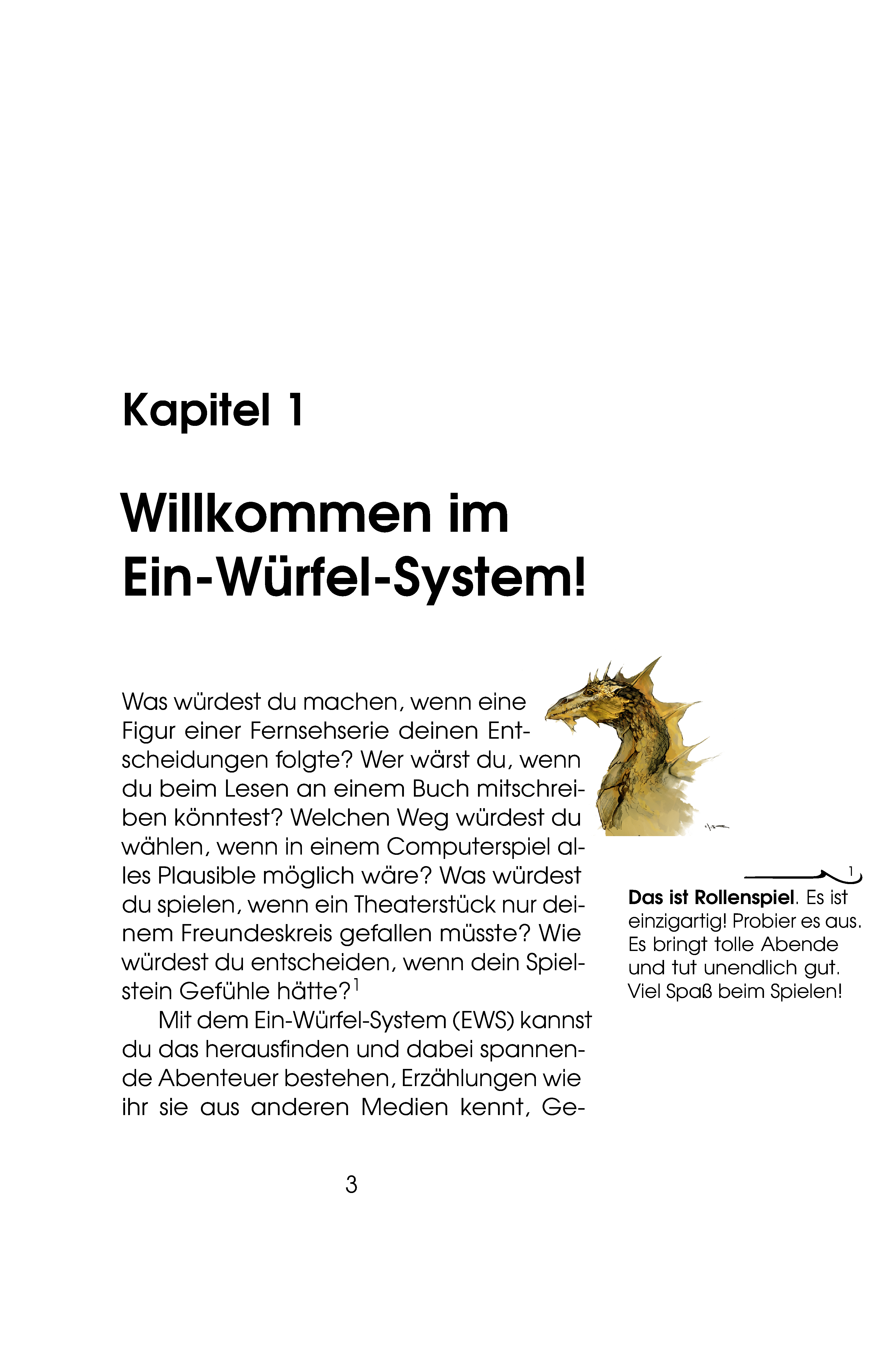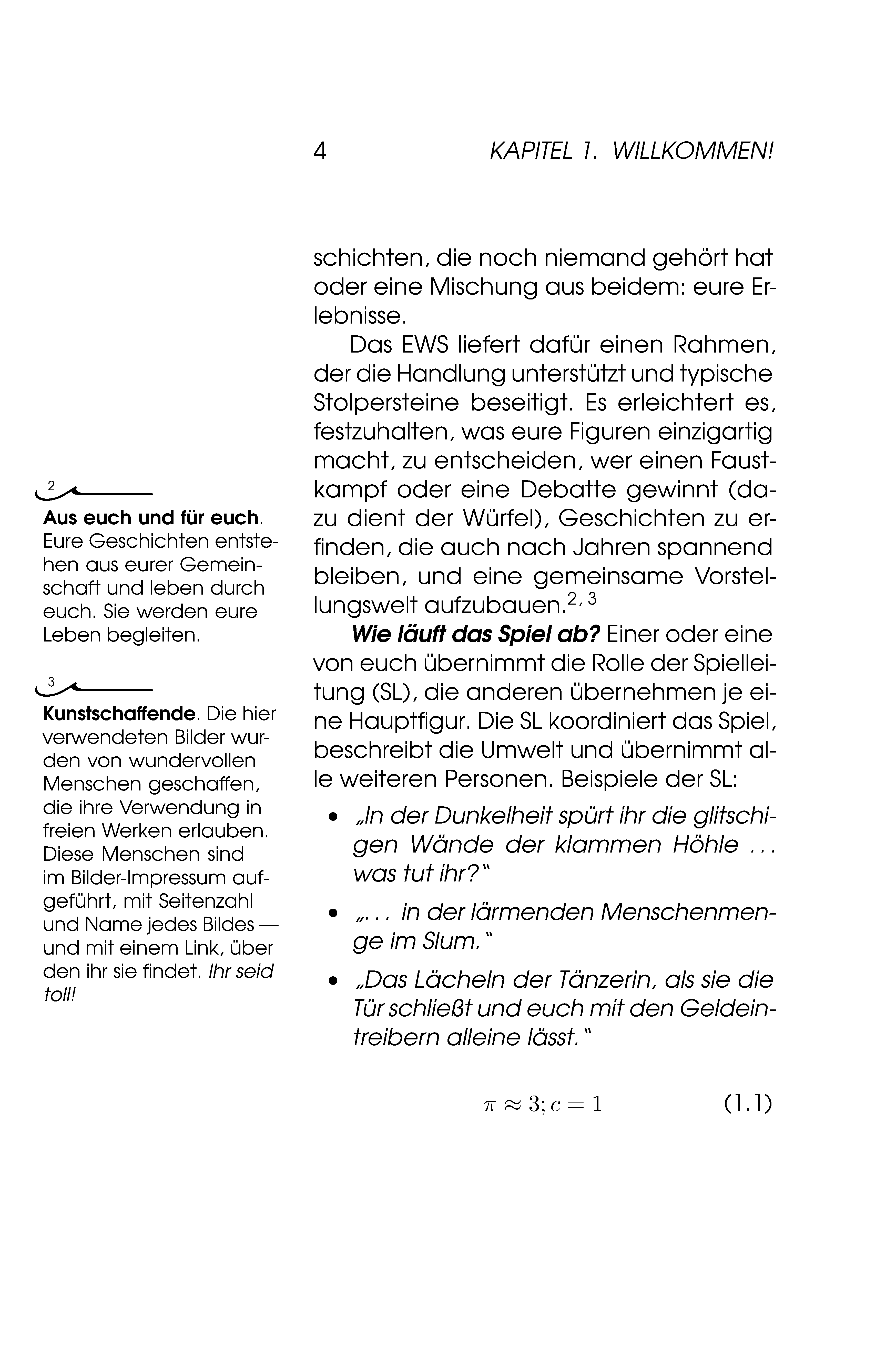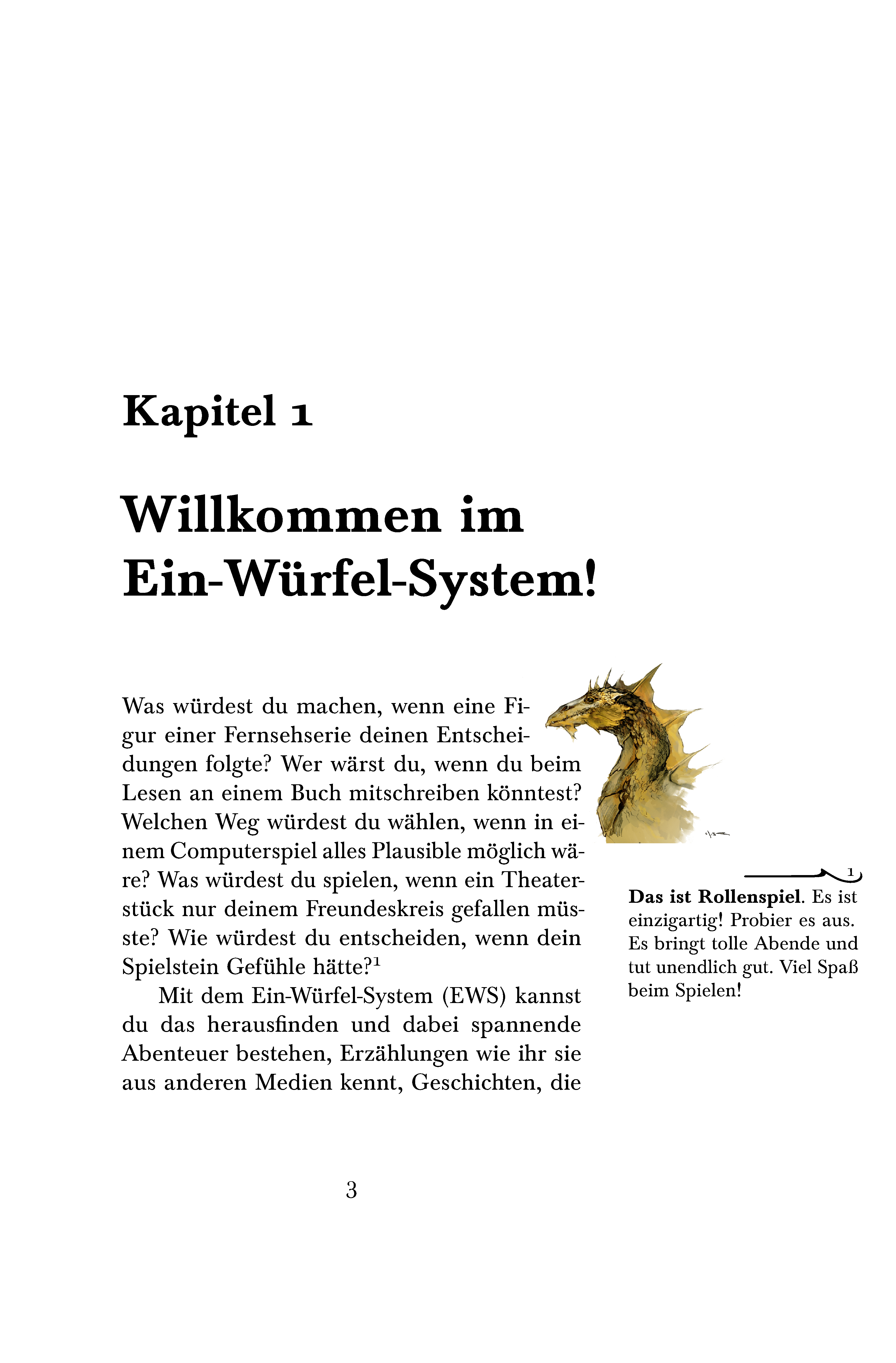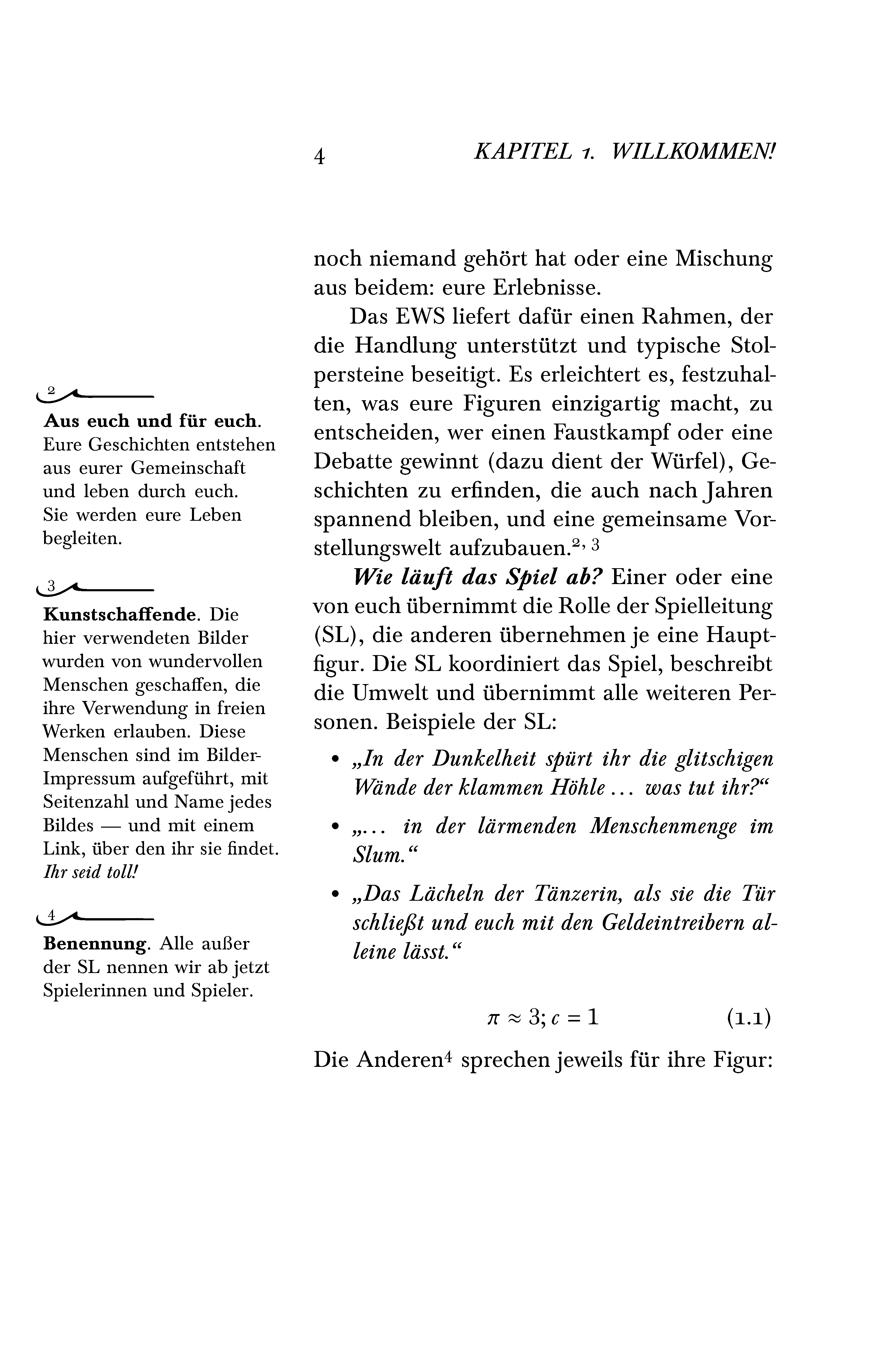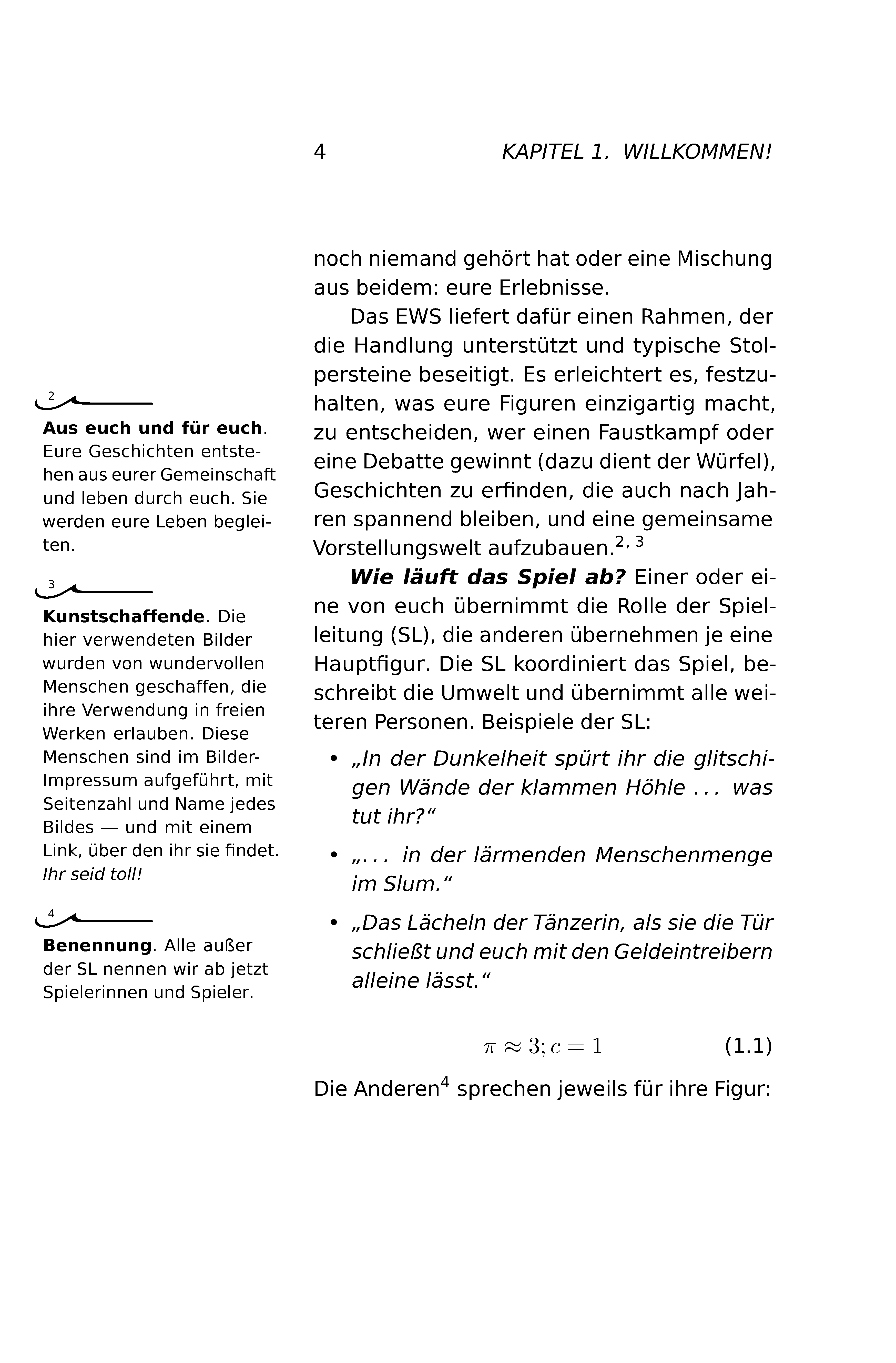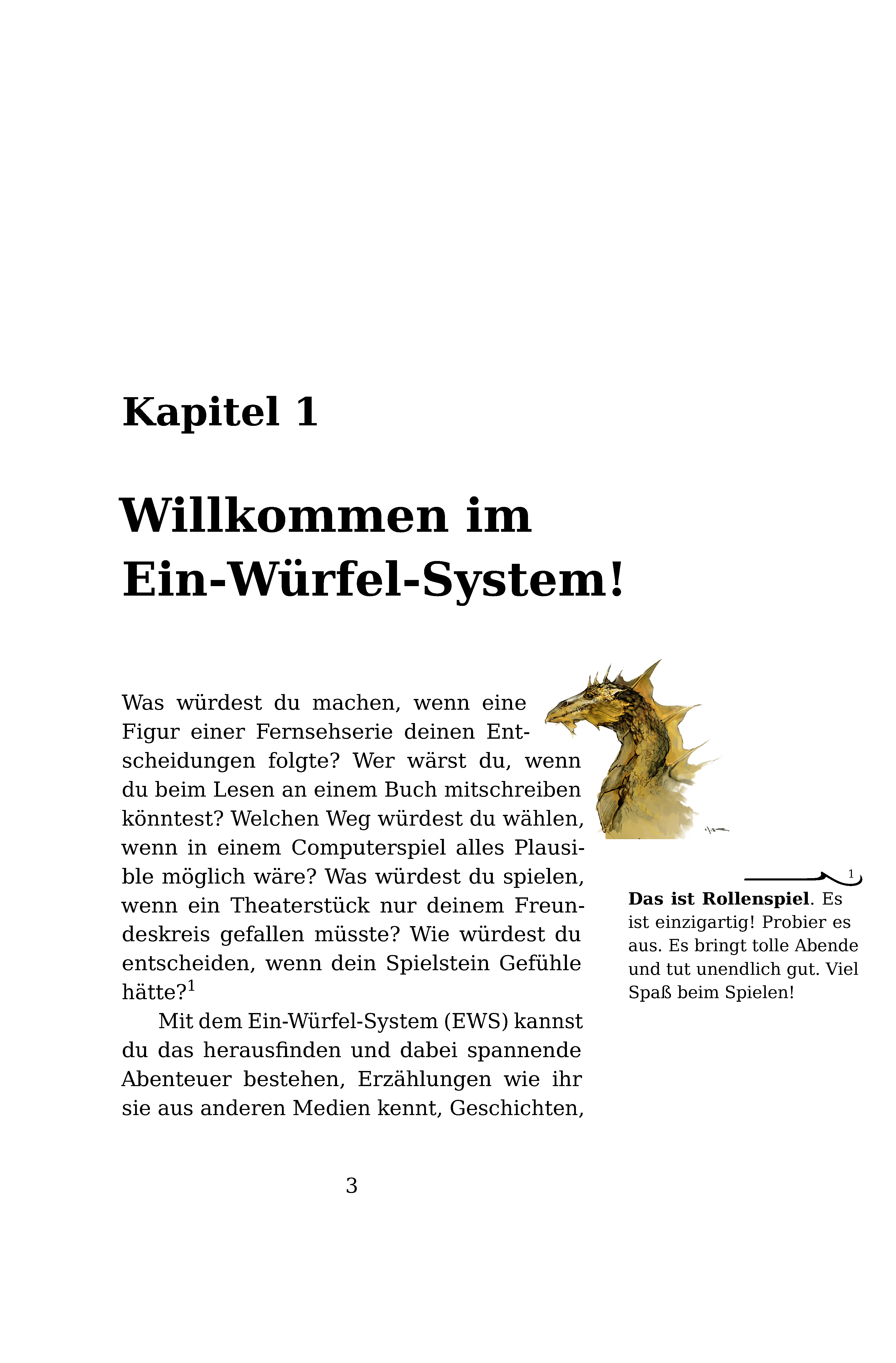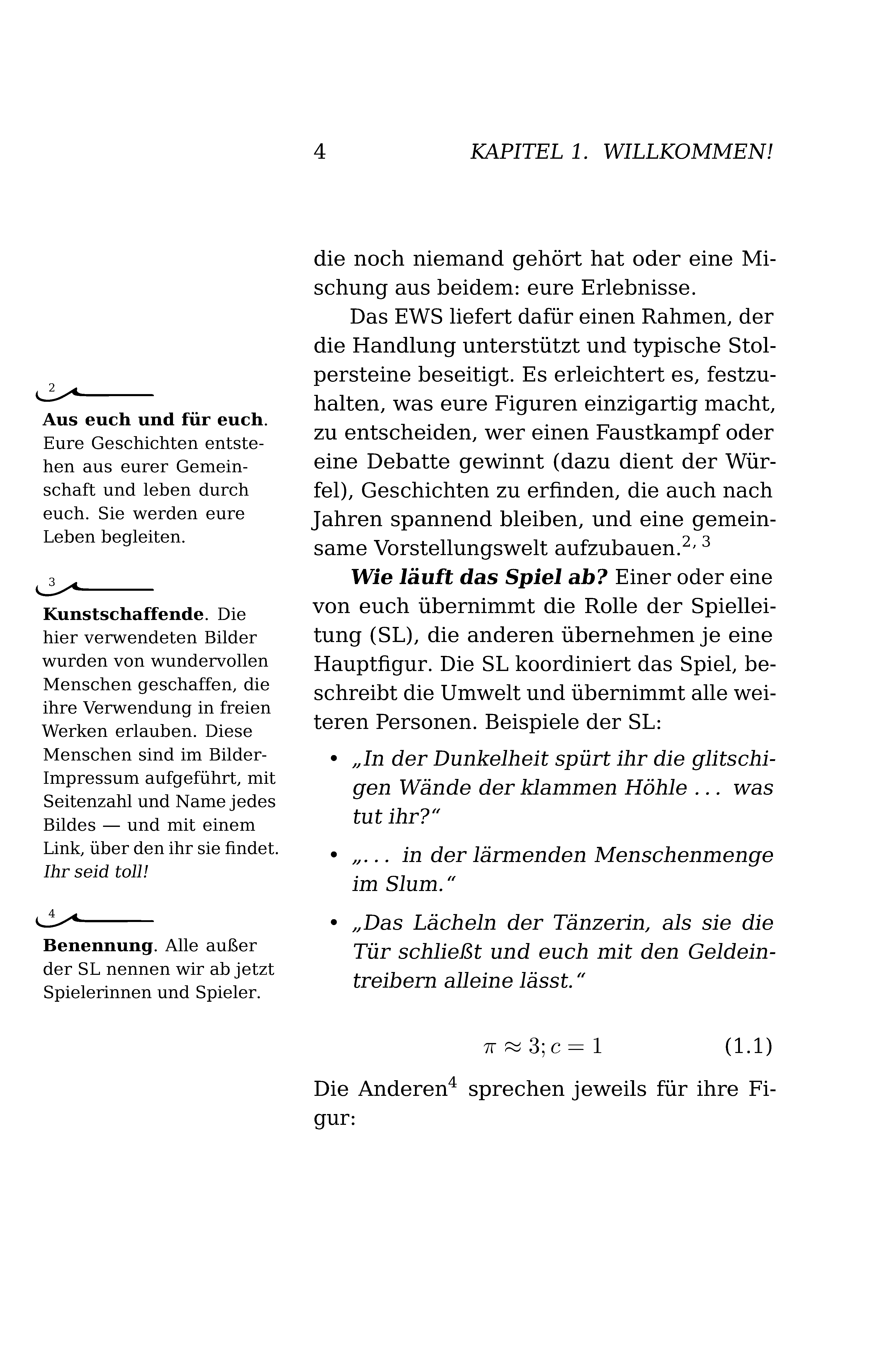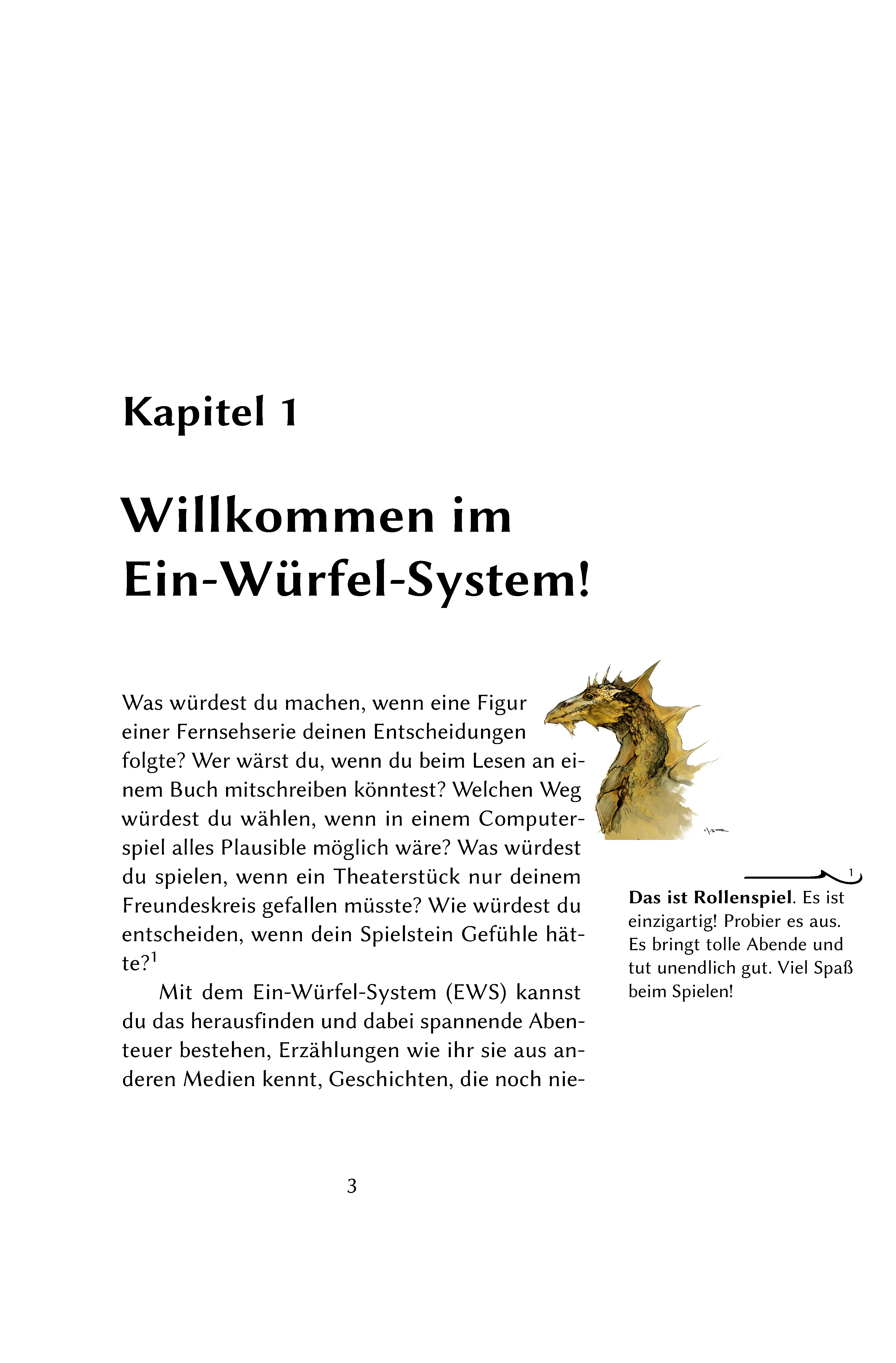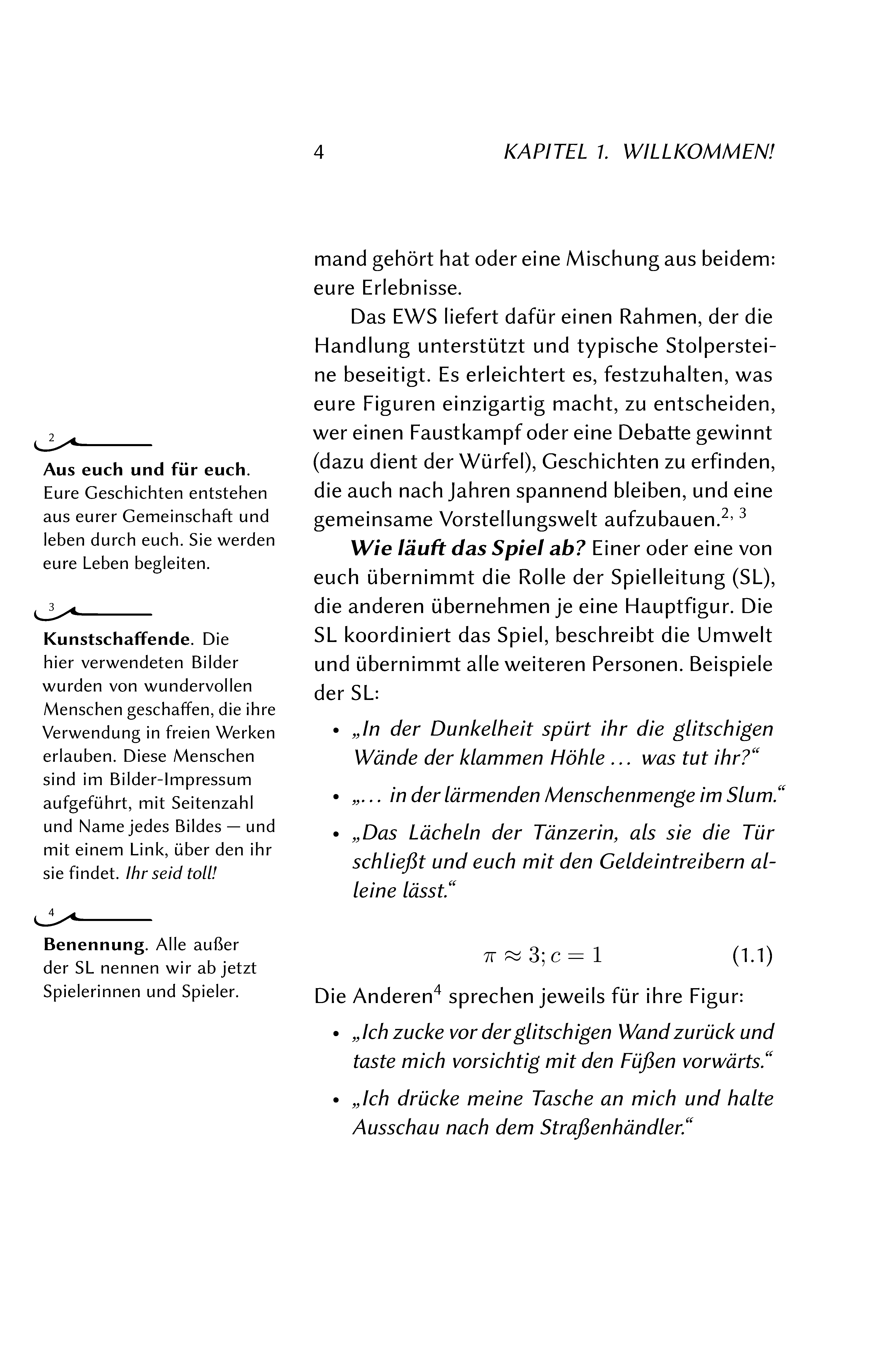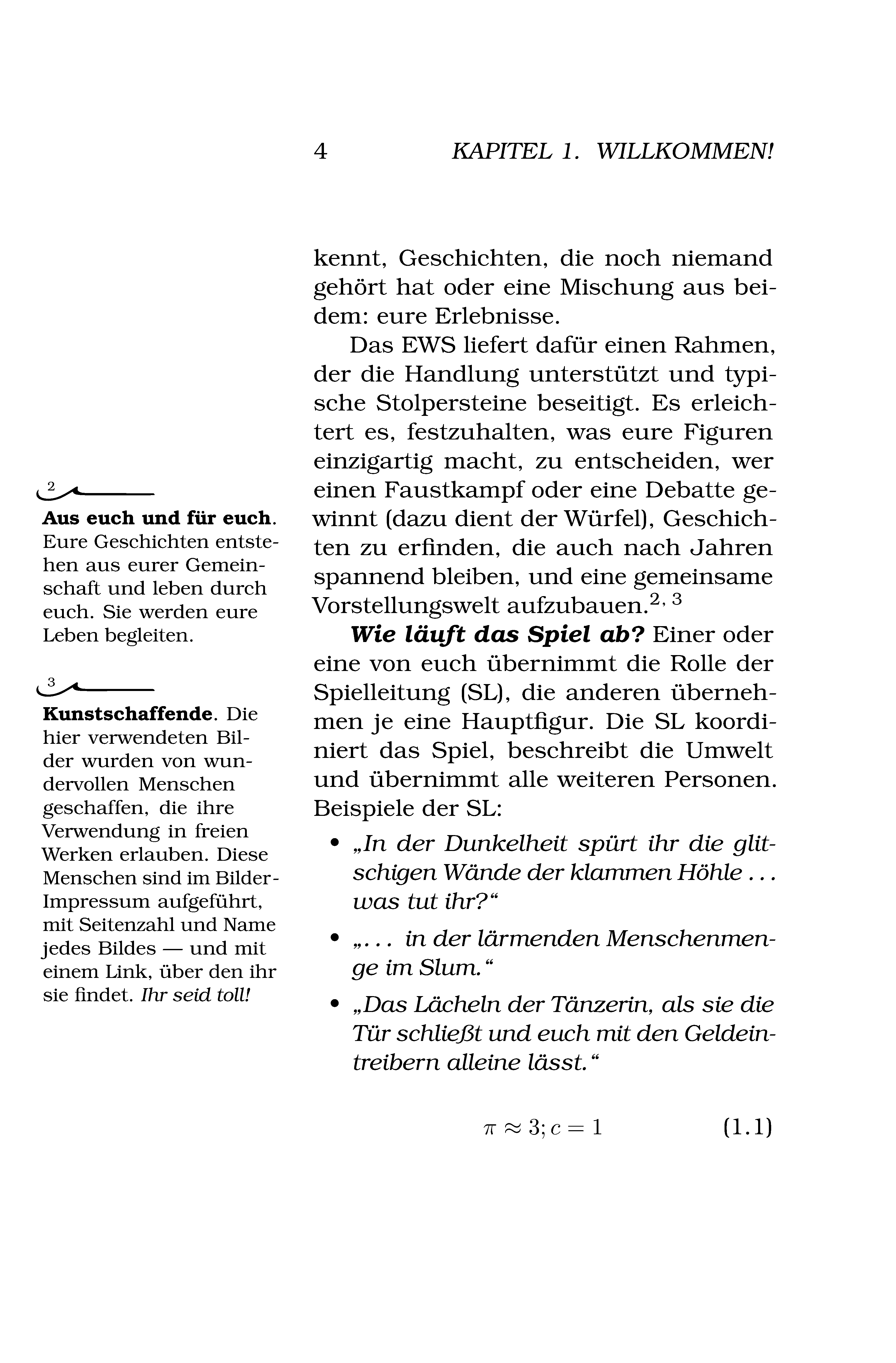
Top 20 Latex Fonts
Following the awesome Top 10 LaTeX Fonts by Jaap Joris Vens, this page includes pages using 20 LaTeX fonts that I evaluated for Version 3.0 of the 1d6 roleplaying system.
Each paragraph1 showcases a different font family and how I activated it. All fonts2 are free and open source and available via texlive. The sources are basesetup.tex and template.org. The pages are converted to PNGs with Ghostscript (see the howto at the end of this page).
Using this page: click through the fonts a few times and stop at the one which best matches the feeling you want.
Sans Serif
Nimbus Sans (Helvetica)
Gothic (URW for Avant Garde)
Berasans
Libris
\usepackage{libris} % a nice, almost handwritten calligraphic look
Biolinum
\usepackage{biolinum} % included with the {Libertine} font package
Iwona
Paratype
Heros
Lato
Cabin
Serif
Latin Modern
Kepler with ligatures
The ligatures like the lines above st are there because I activated old style.
- Kp-Fonts von Christophe Caignaert (2018) des Johannes Kepler project (unter GPL v2 or later mit Font Exception).
Baskerville / Baskervald
- Baskervald ADF von Arkandis Digital Foundry (ADF)(unter GPL v2 or later mit Font Exception) und Heros von Jackowski and Janusz M. Nowacki.
The ligatures like the lines above st are there because I activated old style.
% baskervald with swash: more ligatures,
% and osf: old style (tosf) in text, tlf in math,
Bitstream Charter
Bitstream Charter extended
% extended with many style varieties
Chancery (by URW)
Beraserif
Fourier Century Schoolbook
% compact and lighter than New Century Schoolbook
(New) Century Schoolbook
Schola (TeX Gyre Schoolbook)
% New Century Schoolbook with many font style varieties
Nimbus Roman (URW Times)
If you want to investigate more font previews, without the pre-filtering for legibility done here, the LaTeX Font Catalogue can be a good start. To get to this list, I first checked different font preview lists online, but I missed a pre-filtering for sufficient legibility. There are many fonts online, but most of them are not nice to read in longer-form text (at least not to the standard set by fonts sponsored by Adobe or Microsoft). If you find fonts you like here, please doublecheck your impression with your own page layout. That might change the fonts legibility.